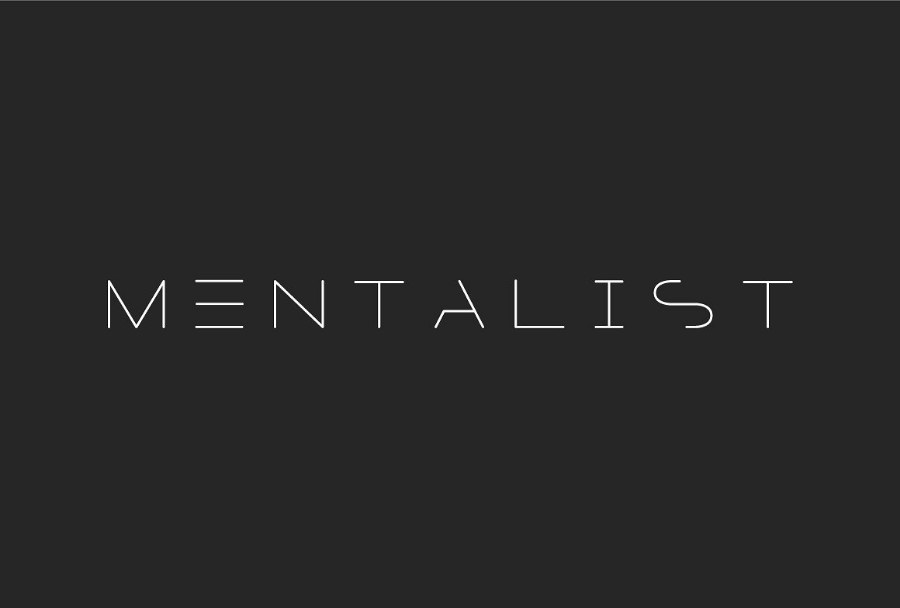
+23 Simple Minimal Fonts Ideas
+23 Simple Minimal Fonts Ideas. Web it’s a great style that works because the font size is usually huge and sentences are very concise, making it easy for readers to know what they’re reading. Every font is free to download!
Minimal fonts are a great choice for luxury branding designs. This is a perfect choice for minimalist projects like logo and branding designs. This font is a good example that shows how you can use a clean font for luxury logo designs.
It Includes Both Uppercase And Lowercase Letters.
When what matters is the content itself, avoid any distraction and be clear with our simple fonts. Web it’s a great style that works because the font size is usually huge and sentences are very concise, making it easy for readers to know what they’re reading. Web nooa is an elegant minimalist font that looks great if used in creative projects, especially as huge typography.
Whether you’re working on a website header,. A charming and captivating font. This is a perfect choice for minimalist projects like logo and branding designs.
This Font Is A Good Example That Shows How You Can Use A Clean Font.
Web this clean and simple font is free to use with your personal projects. Web looking for simple fonts? As well as numbers and symbols.
Web The New 50 Trending Minimal Free Fonts Great For Logo Design And Branding.
Every font is free to download! Quartz 974 is a super interesting font inspired by simple, geometric forms and trends in hipster culture toward the use of triangles in graphic design and. Bergen text is a highly legible typeface that was designed to improve readability,.
Web To Help Speed Up The Process, We’ve Selected Some Simple And Minimal Fonts That You Can Use In Your Design.
Starting as simple as possible will give you the freedom to. Web these minimal fonts are all reasonably priced and will add a beautiful finishing touch to your work. Web minimal fonts are a great choice for luxury branding designs.